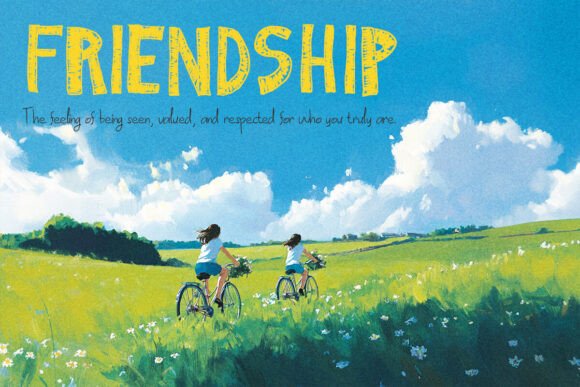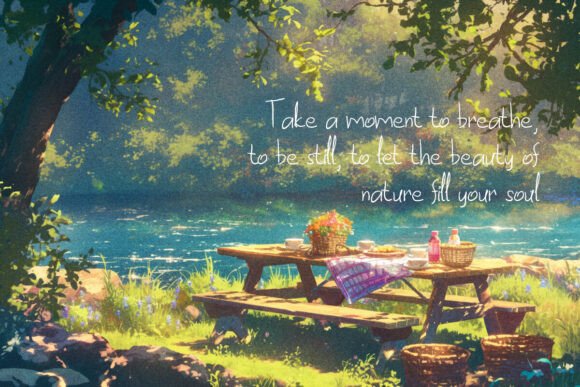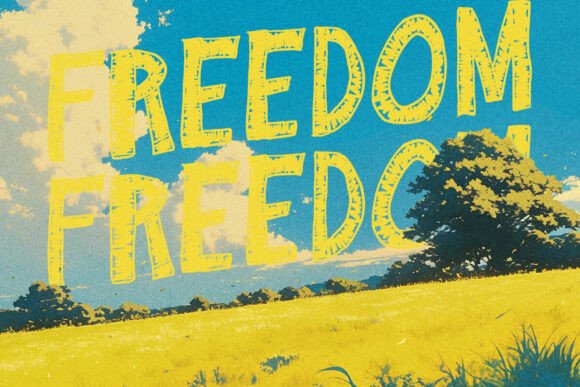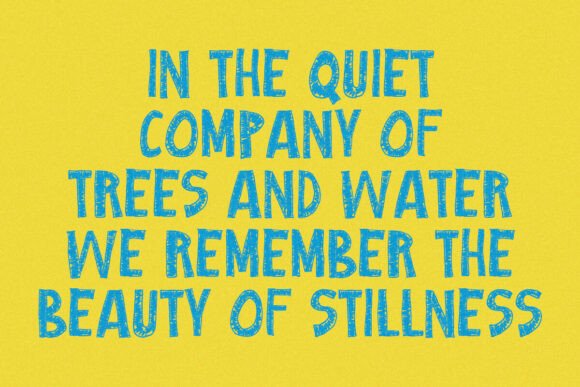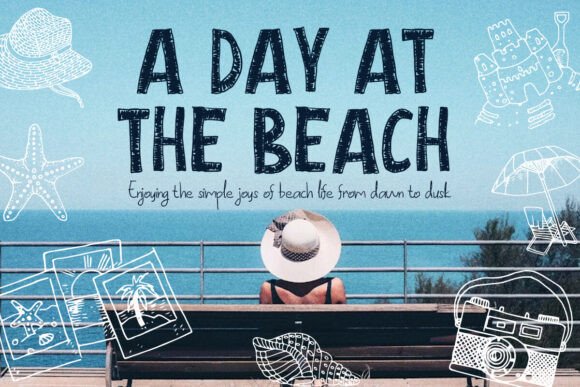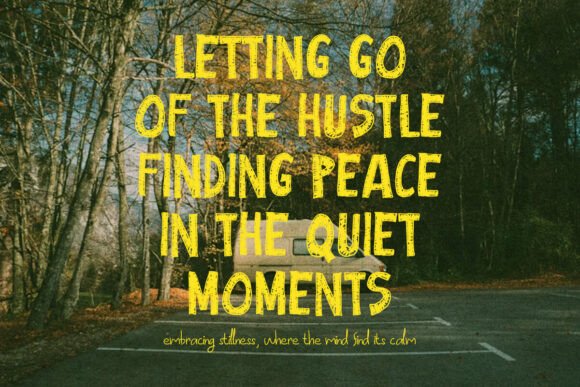
Affection Font: Adding a Touch of Warmth and Whimsy to Your Designs
In the world of typography, fonts play a crucial role in conveying emotions and setting the tone for a design. If you’re looking for a font that embodies creativity, warmth, and playfulness, look no further than Affection Font. This charming font is designed to bring a sense of lightheartedness and whimsy to your designs, making it perfect for a wide range of projects.
What is Affection Font?
Affection Font is a unique and versatile font that comes in two distinct styles. The first style is a fun, doodle-inspired display font that is sure to add a touch of playfulness to any design. With its irregular shapes and carefree vibe, this font is ideal for designs that require a lighthearted and whimsical touch. The second style is a handwritten font that offers a personal and intimate feel, perfect for designs that require a more heartfelt and emotional connection.
Key Features of Affection Font
- Playful and charming: Affection Font is designed to bring a sense of fun and playfulness to your designs, making it perfect for projects that require a lighthearted touch.
- Two unique styles: The font comes in two distinct styles: a doodle-inspired display font and a handwritten font, allowing you to choose the perfect style for your design.
- Perfect for a range of projects: Affection Font is ideal for a wide range of projects, including greeting cards, social media posts, quotes, and much more.
Uses for Affection Font
Affection Font is a versatile font that can be used for a wide range of projects. Here are some ideas to get you started:
- Greeting cards: Add a personal touch to your greeting cards with Affection Font’s handwritten style, or create fun and playful cards with the doodle-inspired display font.
- Social media posts: Use Affection Font to add a touch of whimsy and playfulness to your social media posts, making them stand out from the crowd.
- Quotes and posters: Create inspiring quotes and posters with Affection Font’s handwritten style, or add a playful touch with the doodle-inspired display font.
- Crafting and DIY projects: Affection Font is perfect for crafters and DIY enthusiasts who want to add a personal touch to their projects, such as handmade journals, scrapbooking, and more.
Why Choose Affection Font?
With so many fonts available, why choose Affection Font? Here are just a few reasons:
- Unique and creative: Affection Font is a one-of-a-kind font that will add a touch of creativity and originality to your designs.
- Emotional connection: The font’s handwritten style and doodle-inspired display font are designed to create an emotional connection with your audience, making your designs more relatable and engaging.
Affection Font is a charming and versatile font that is perfect for designers and crafters who want to add a touch of warmth and whimsy to their designs. With its two unique styles and wide range of uses, Affection Font is sure to become a favorite in your design toolkit. So why wait? Download Affection Font today and let it bring a bit of love and playfulness to your designs!